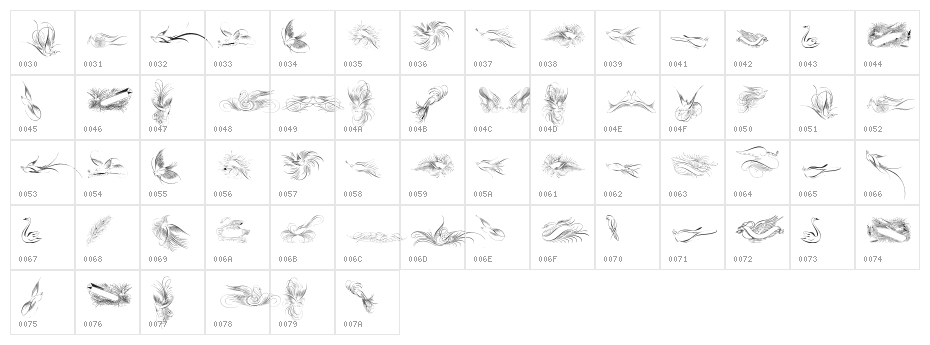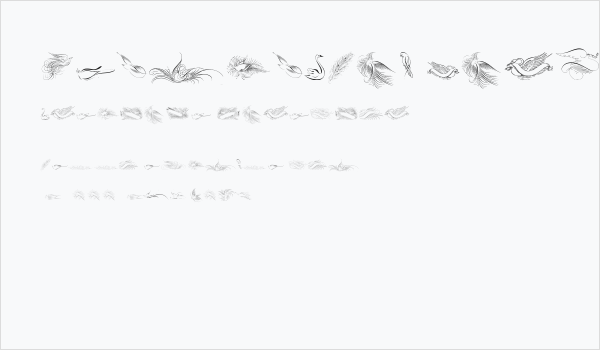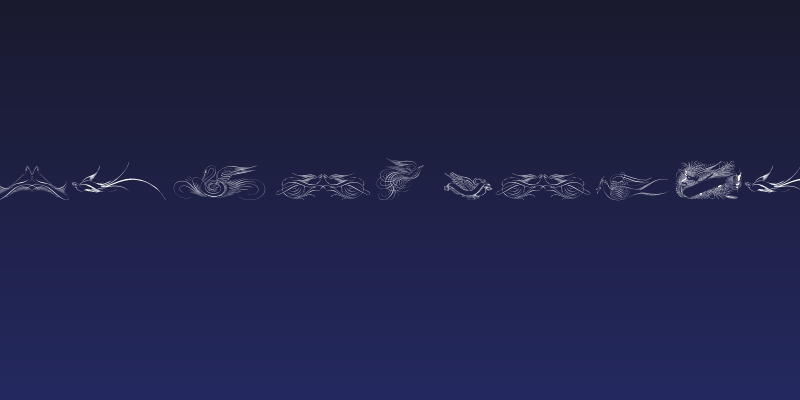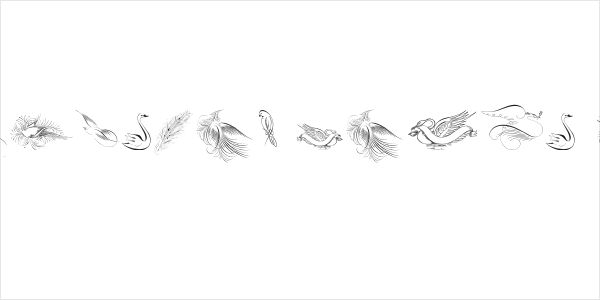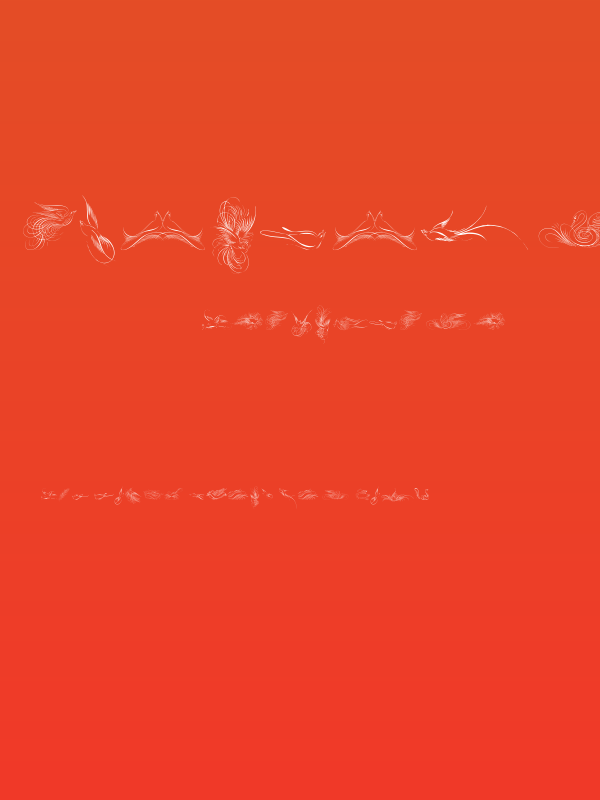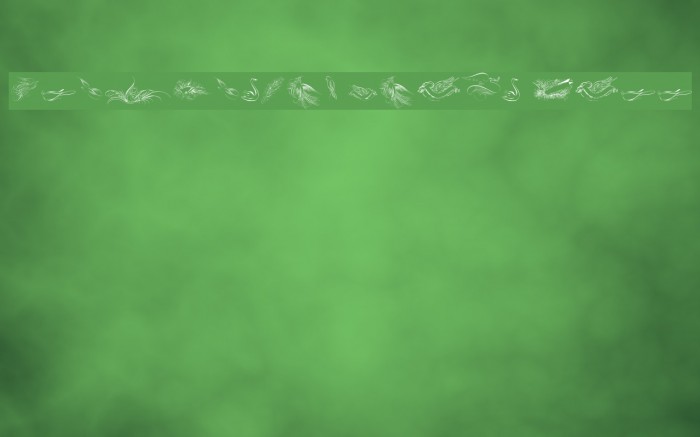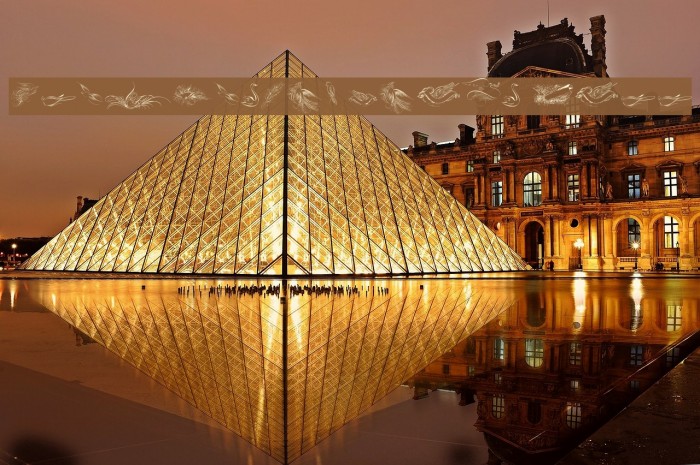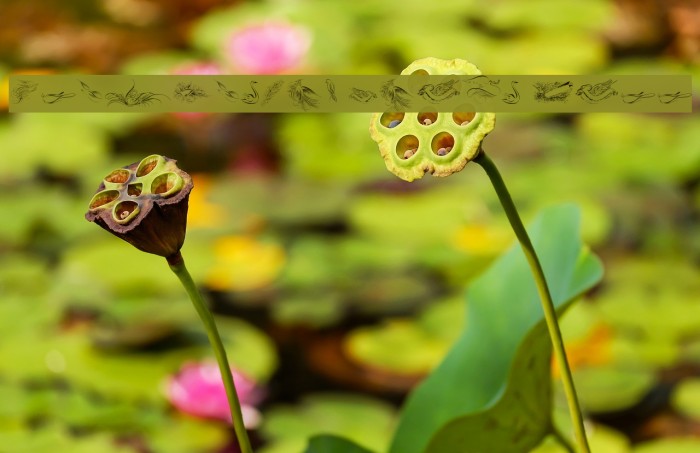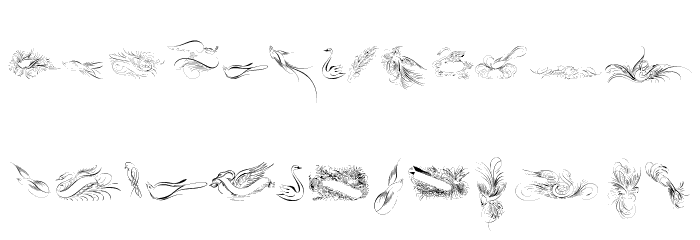
Penmanship Birds Free Font
Penmanship Birds Free Description
This is not a valid font. The image contains decorative illustrations of birds and feathers, which are artistic and ornamental in nature. These designs are intricate and detailed, showcasing a variety of bird forms and feather patterns. They are not suitable for use as a traditional font for text representation.
| Use Case | Artistic designs, decorative elements |
| Proposed Projects | These illustrations could be used for decorative purposes in graphic design projects, such as invitations, greeting cards, or art prints. |